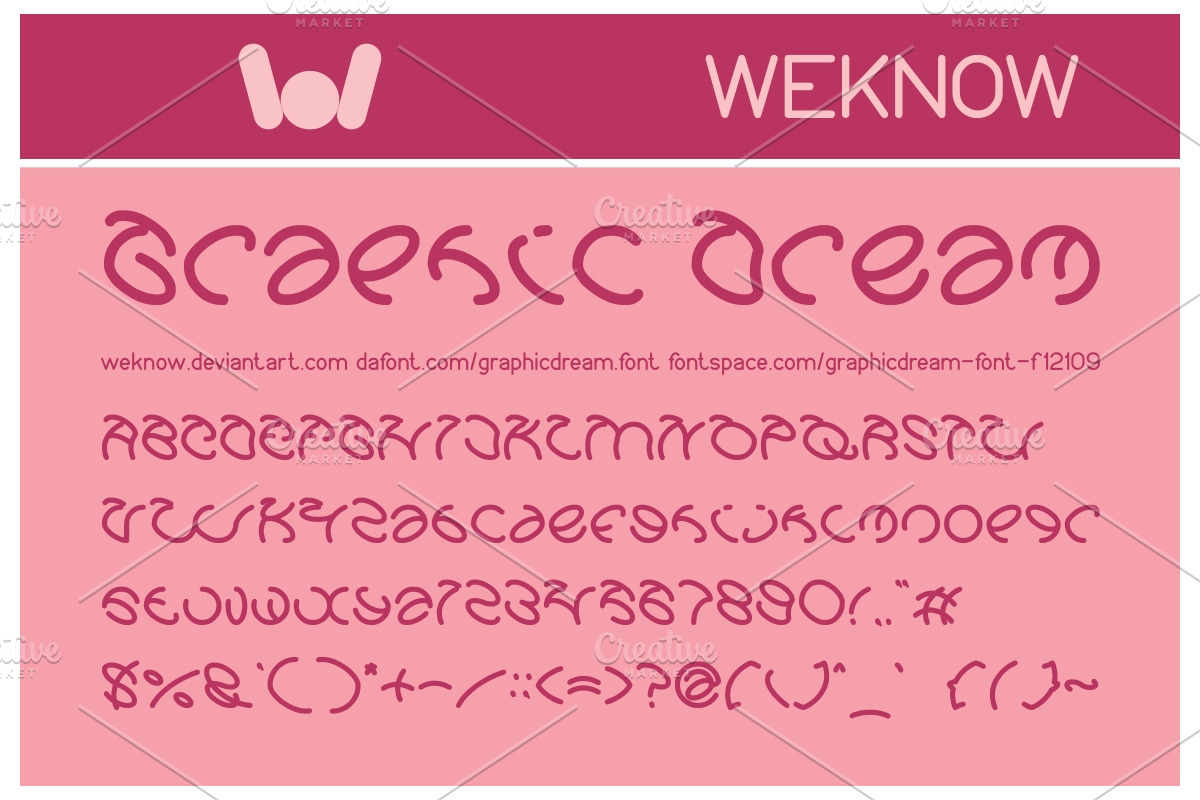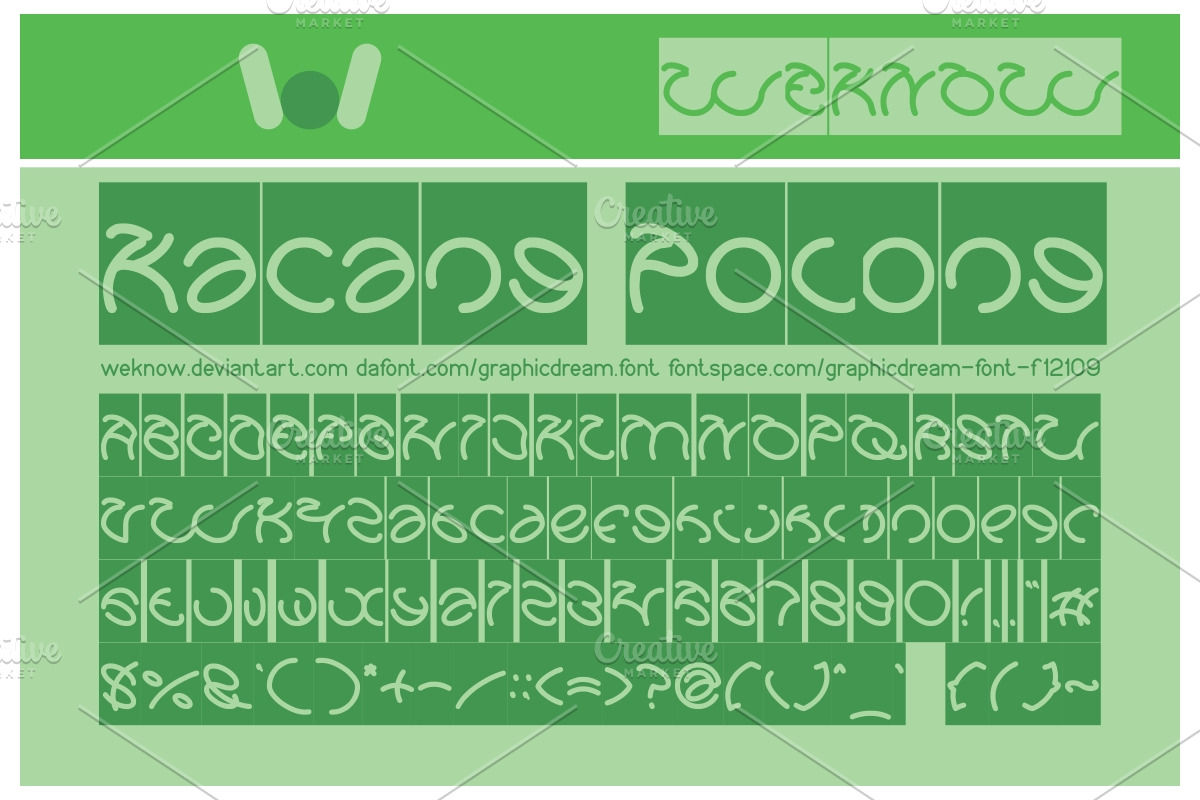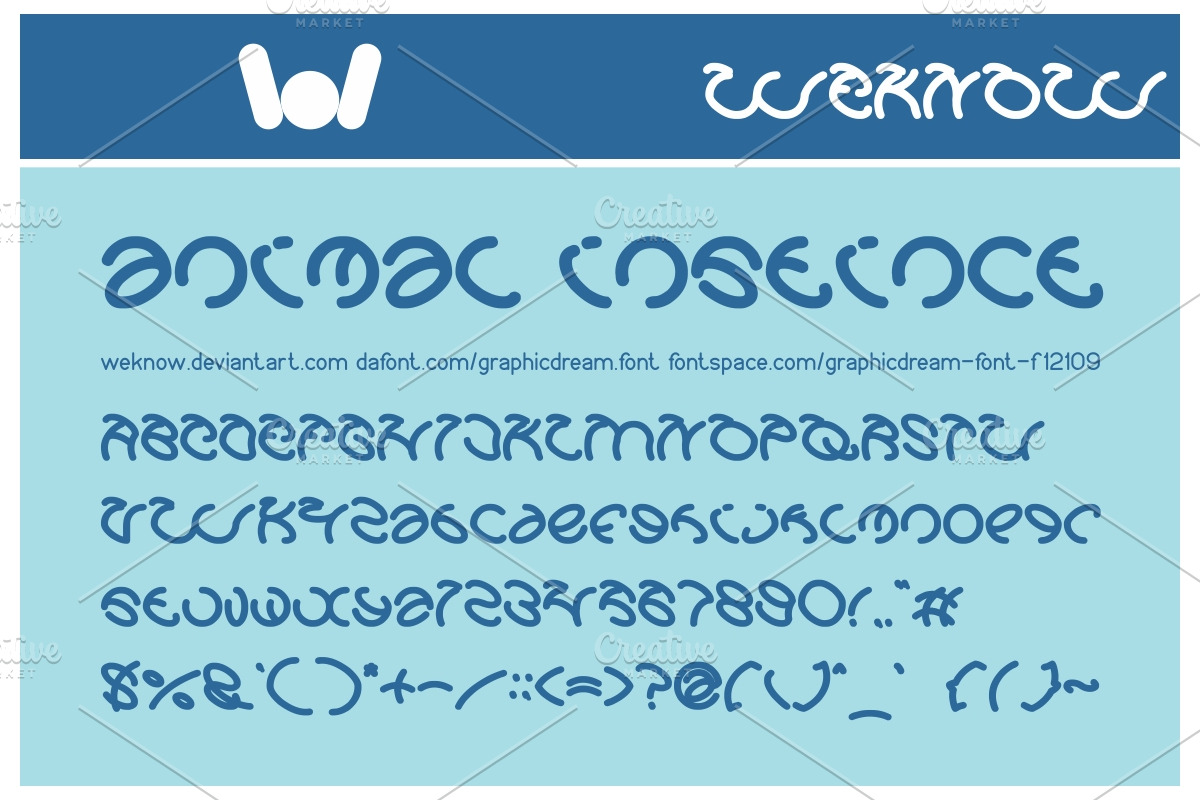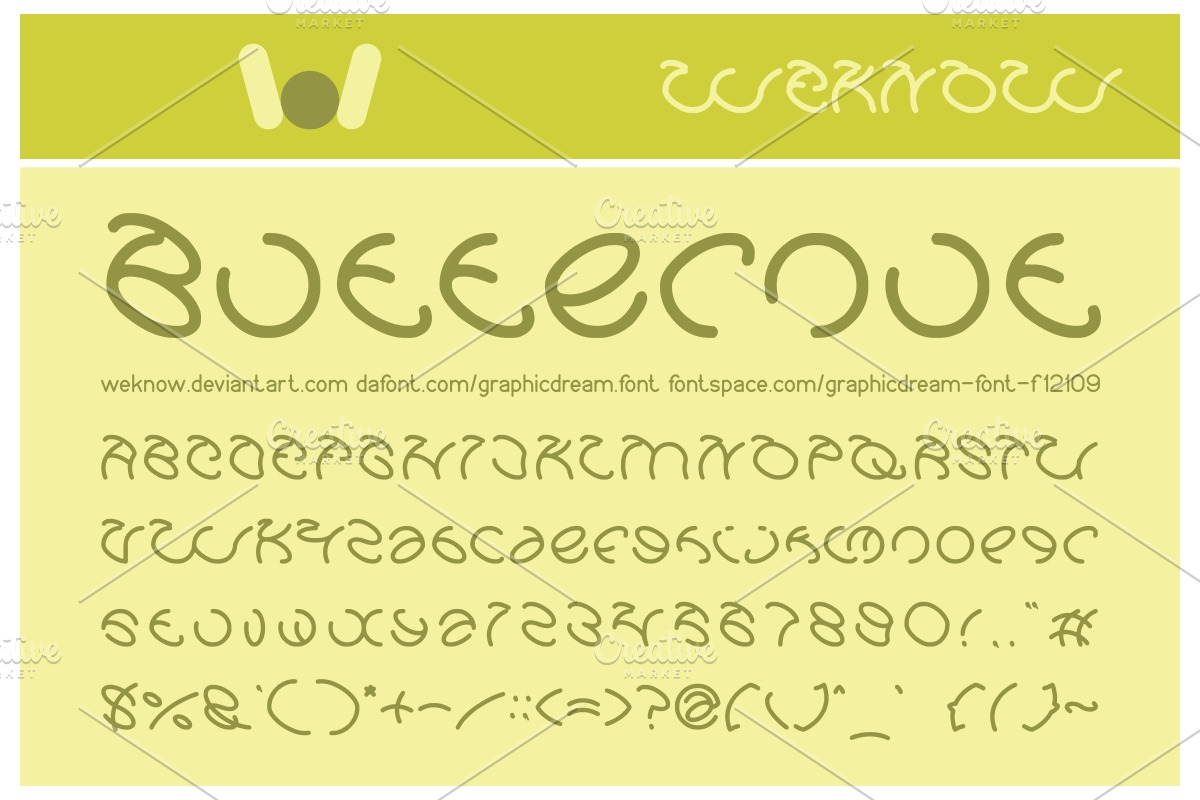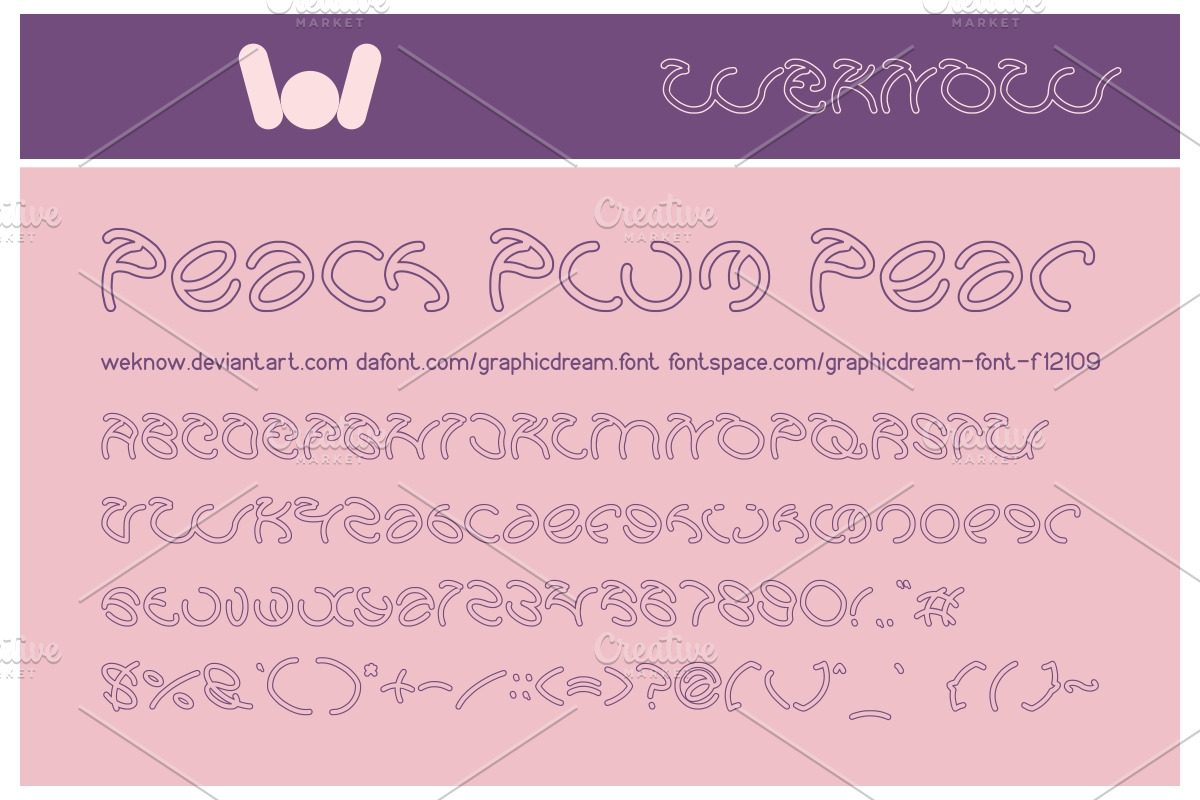
Graphic Dream font
available style: Graphic Dream-Light, Graphic Dream-Bold, Graphic Dream-Hollow, Graphic Dream-Inverse
Why Graphic Dream font is worth a look
Graphic Dream font by weknow fits naturally into Branding, posters, packaging, typography.